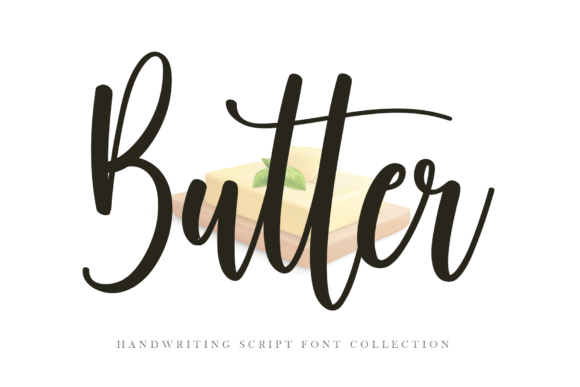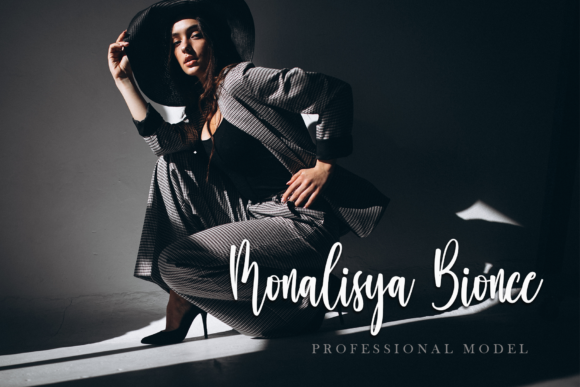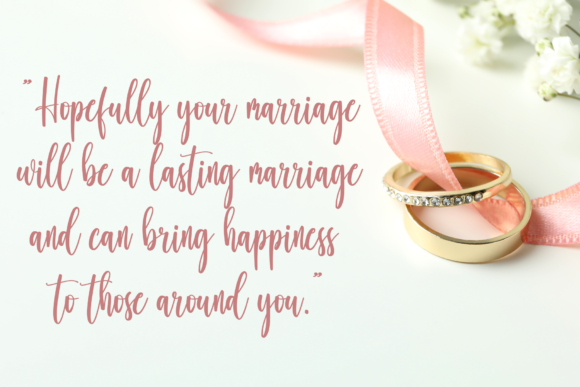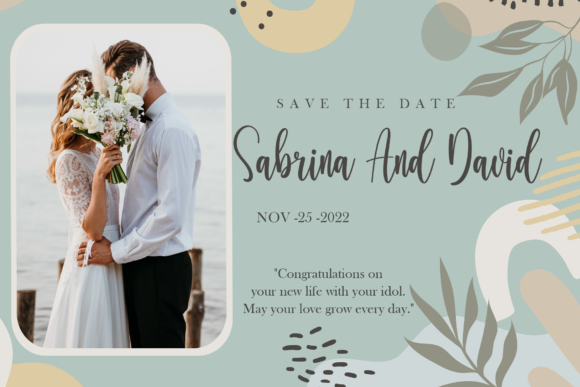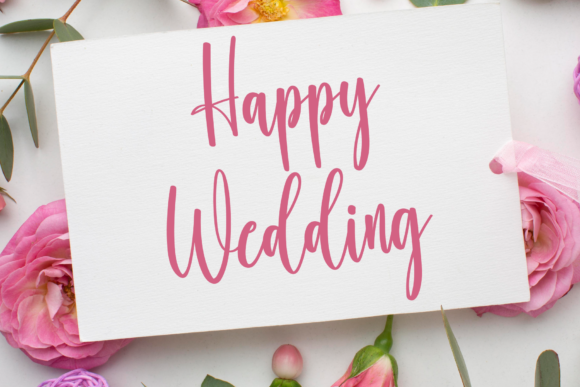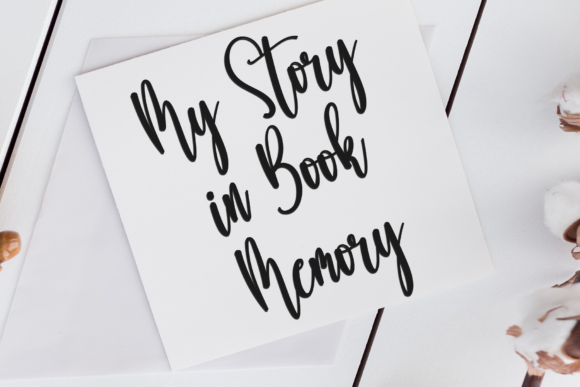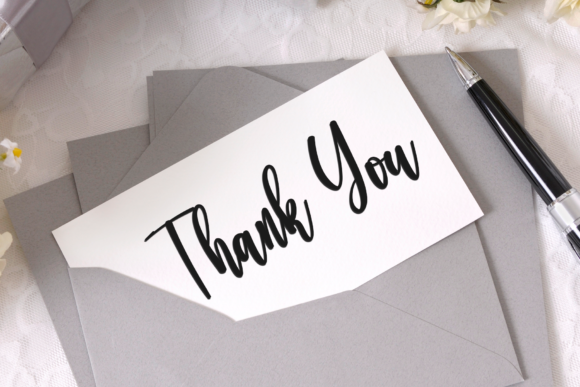
Butter Font
Butter font, with its sweet and cursive script font, adds a delightful charm to any design project it graces. Crafted with care, this handwritten typeface exudes a gentle elegance that enhances the visual appeal of your creations.
At its core, Butter font captures the essence of handwritten script, infusing each stroke with warmth and character. The cursive style lends a sense of fluidity and grace to the text, creating a captivating effect that draws the eye.
One of the standout features of Butter font is its versatility. It complements a variety of design ideas, effortlessly adapting to different themes and contexts. Whether used for wedding invitations, greeting cards, or romantic quotes, this font adds a joyful and romantic touch to every project.
Moreover, Butter font evokes a sense of joy and whimsy, making it perfect for conveying heartfelt messages and sentiments. Its gentle demeanor creates an inviting and uplifting atmosphere, eliciting positive emotions from viewers.
In addition to its aesthetic appeal, Butter font is designed for ease of use. Its well-defined letterforms and balanced spacing ensure optimal legibility, while its compatibility with various design software makes it accessible to designers of all skill levels.
In summary, Butter font is a sweet and cursive handwritten typeface that brings a touch of elegance and romance to any project. With its charming style and versatile application, it adds a delightful flair to invitations, cards, posters, and more. Let Butter font be the perfect choice for infusing your designs with joy and beauty, and watch as it enhances the overall visual impact of your creations.